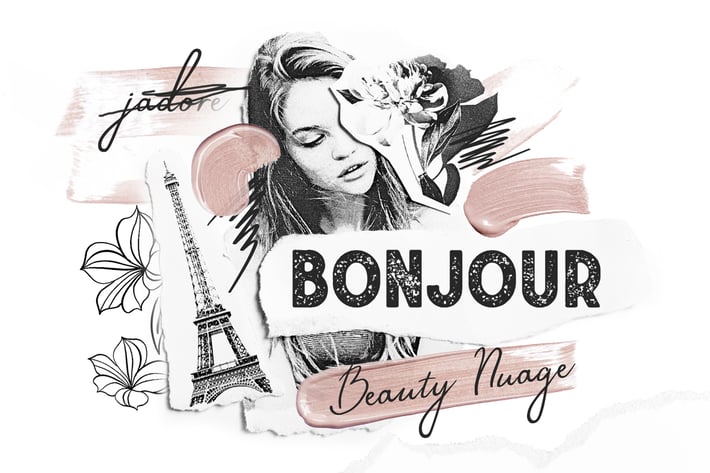
Bonjour Sans Serif Font
Bonjour - a regular sans serif font with grunge style. Includes uppercase and lowercase letters, punctuation, numbers, multilingual support.
Bonus - Collection of Nude Brush Strokes, Collection of Ripped Paper, One Line Floral Illustrations.